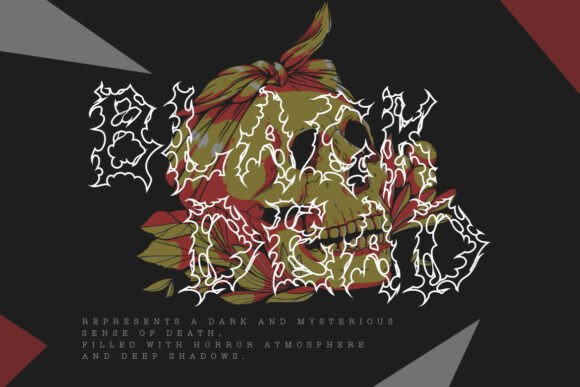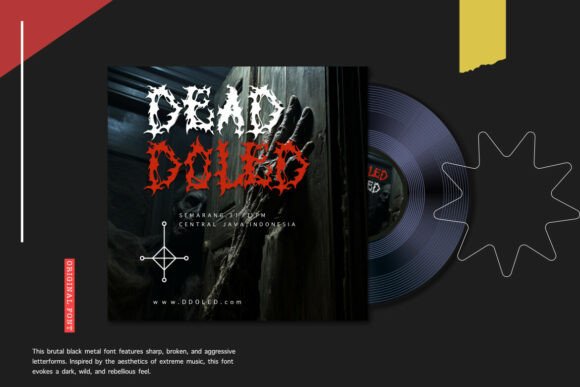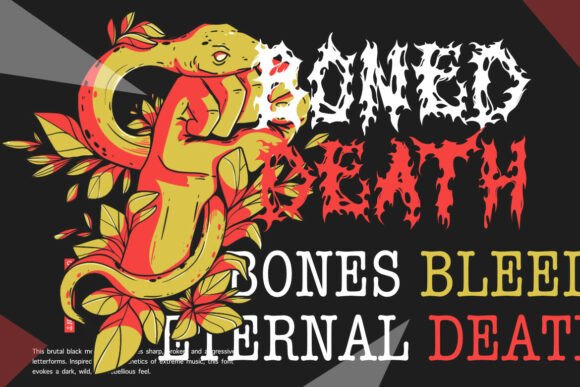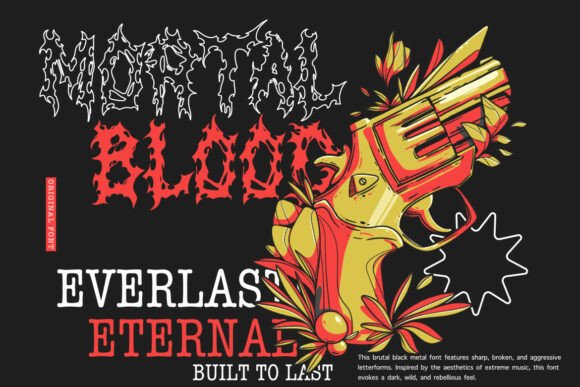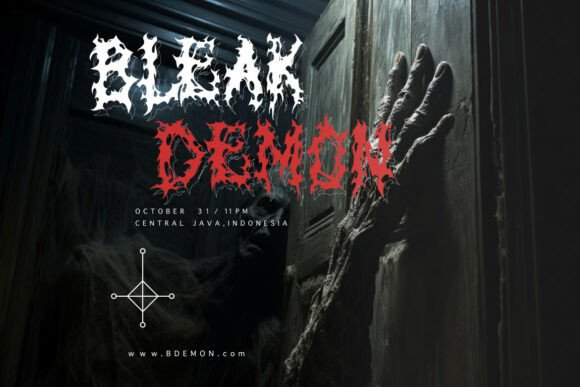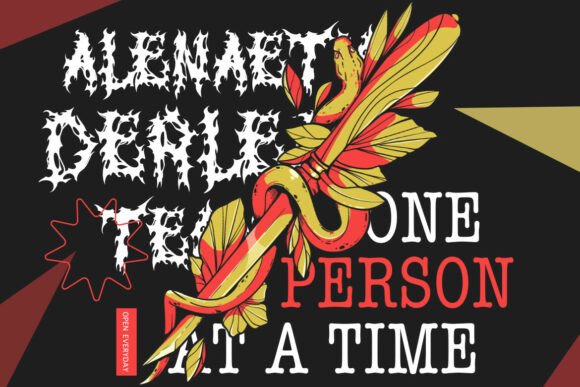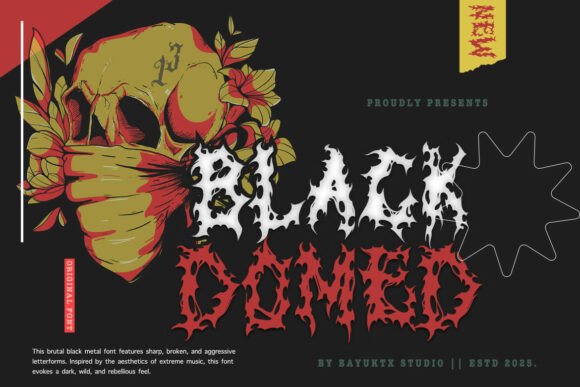
Unleashing the Fury: A Deep Dive into Black Domed Font
I still remember the design project that led me to discover the Black Domed font. I was working on a logo for a black metal band, and I needed a typeface that could convey the raw energy and aggression of their music. After hours of searching, I stumbled upon Black Domed, and it was love at first sight. The font’s sharp, distorted letterforms and chaotic vibe perfectly captured the spirit of the band’s music. In this article, I’ll share my experience with Black Domed, its features, and how to make the most of it in your designs.
A Personal Review: The Good and the Quirks
• Fierce and aggressive aesthetic: Black Domed is perfect for designs that require a bold, in-your-face attitude.
• Highly legible: Despite its distorted and irregular shapes, the font remains surprisingly readable.
• 💥 Perfect for dark themes: Black Domed shines in horror, gothic, and extreme-themed designs, adding a touch of chaos and rebellion.
• ⚠️ Limited use in formal designs: Black Domed’s aggressive style might not be suitable for more formal or professional projects.
• 🤔 Glyph limitations: Some users have reported limited glyph options, which might restrict its use in certain projects.
The creator of Black Domed drew inspiration from the raw energy of extreme metal music and the dark, underground aesthetics of black metal culture. The font’s designer aimed to capture the chaotic and rebellious spirit of this subculture, resulting in a typeface that’s perfect for designs that require a bold, uncompromising attitude.
Q: What type of projects is Black Domed best suited for?
A: Black Domed is perfect for projects that require a bold, aggressive aesthetic, such as black metal and death metal logos, album covers, horror and gothic designs, and dark branding.